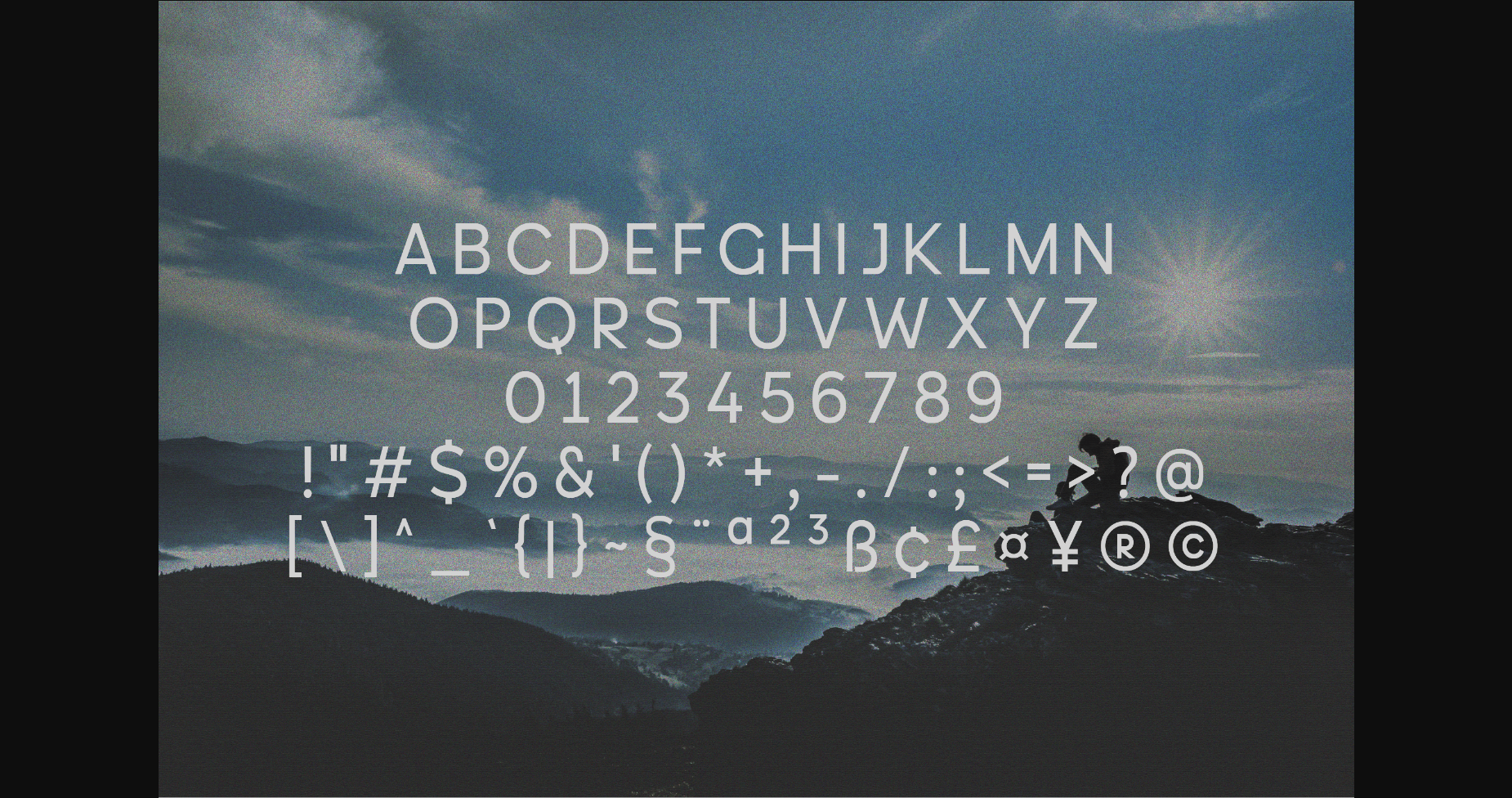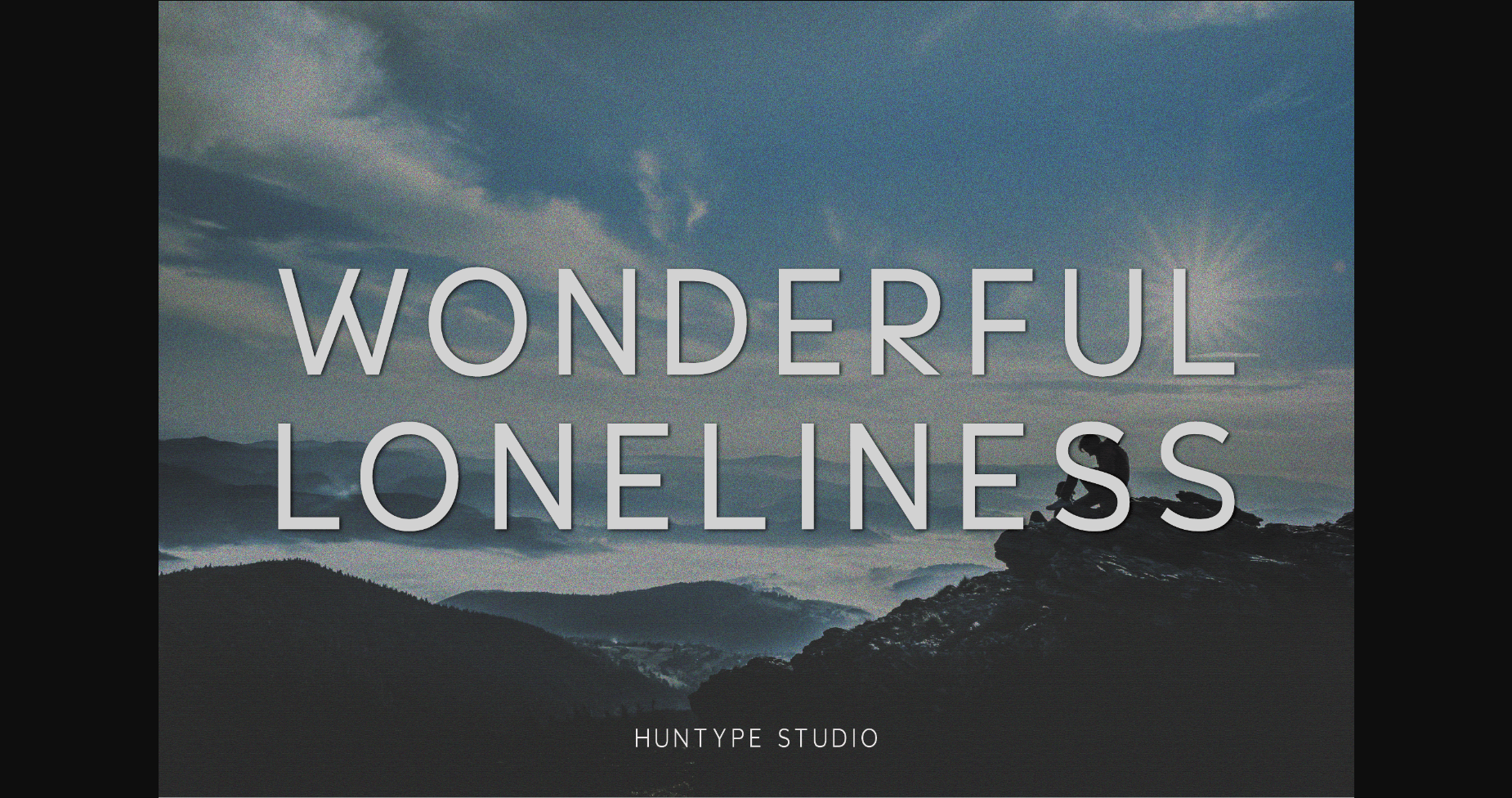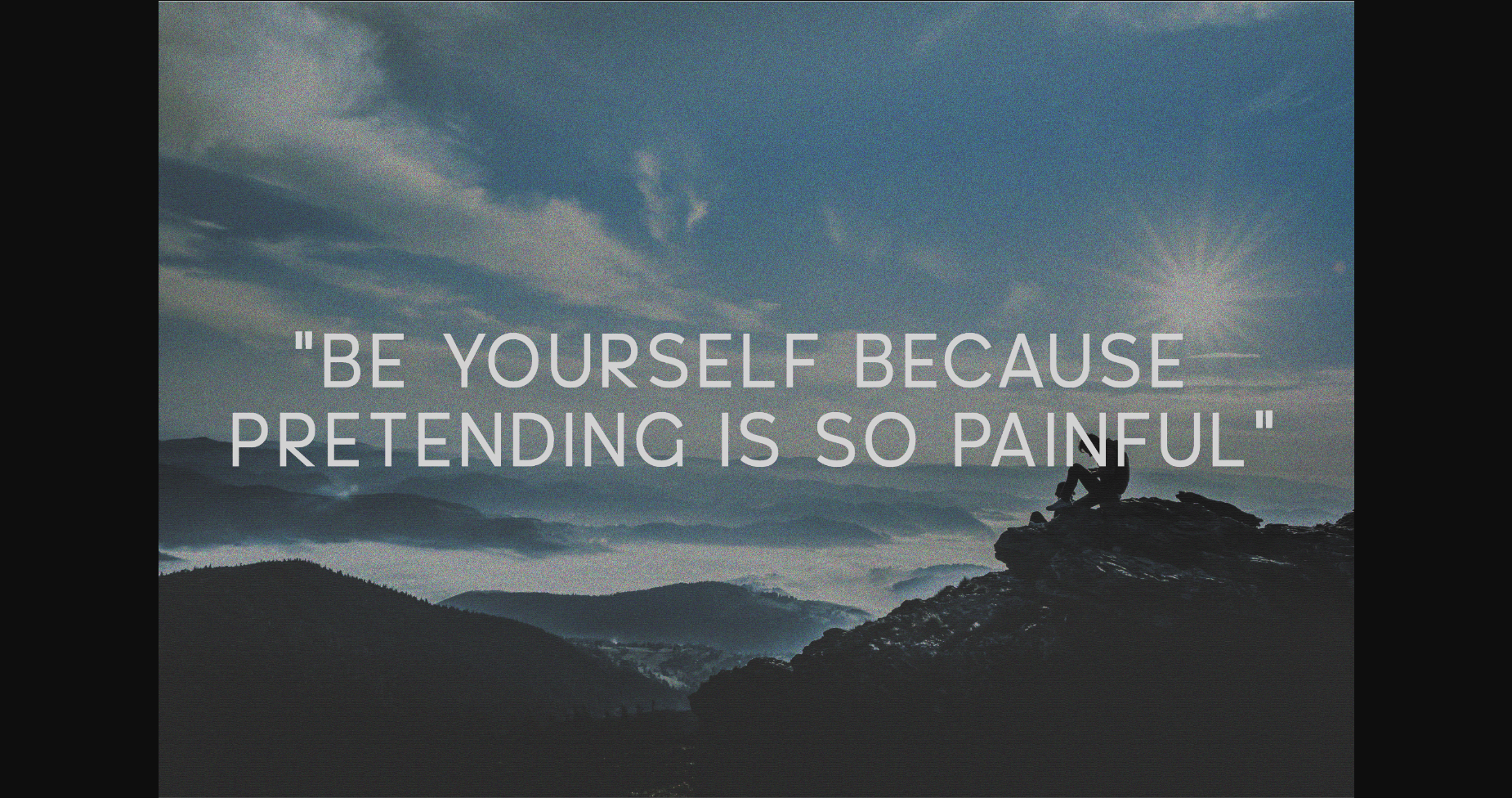
Wonderful Loneliness Font
About Wonderful Loneliness Font
Wonderful Loneliness is an all-caps sans serif. It is versatile and looks great in just about any context. With smooth and clean lines and just a touch of contrast, Wonderful Loneliness works beautifully for logos, branding, and web headings.